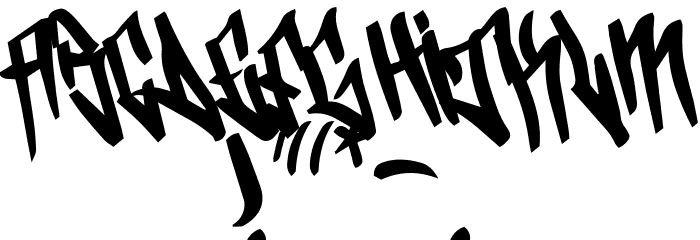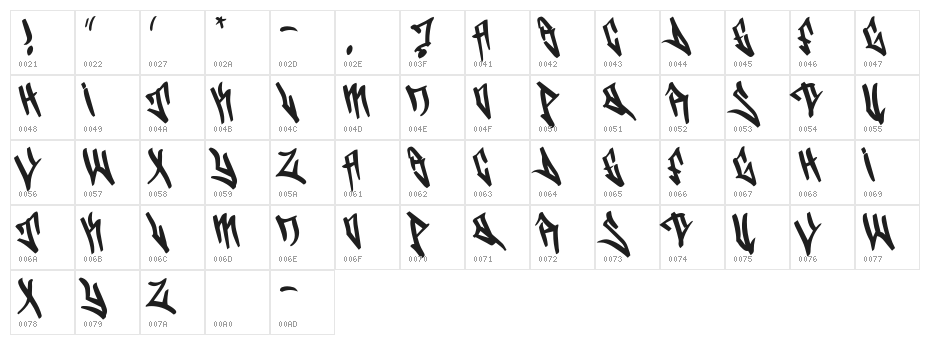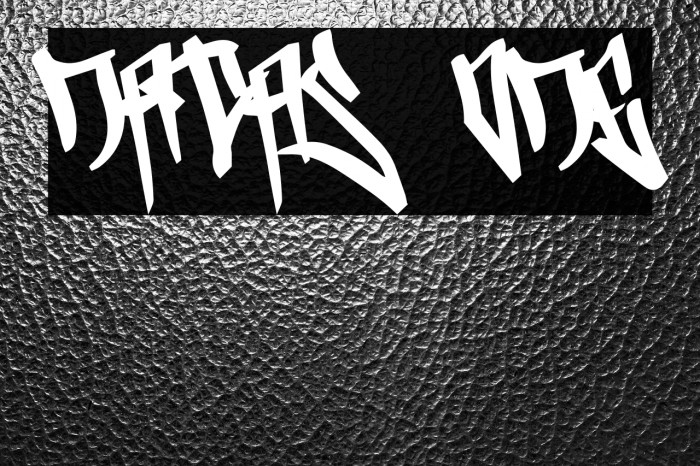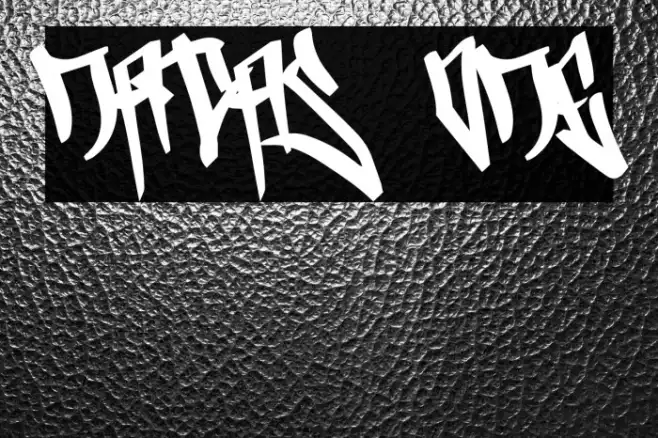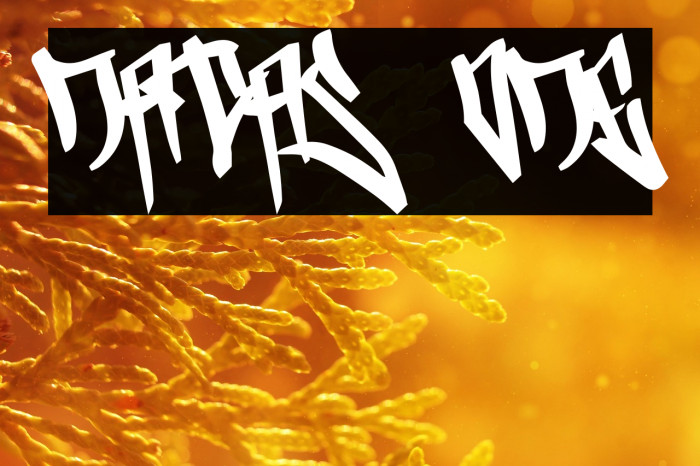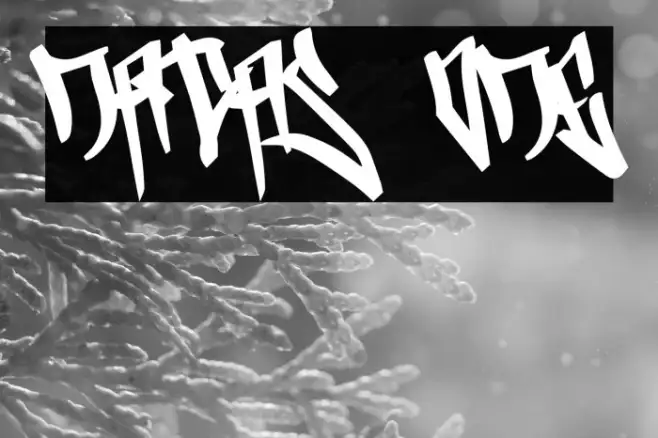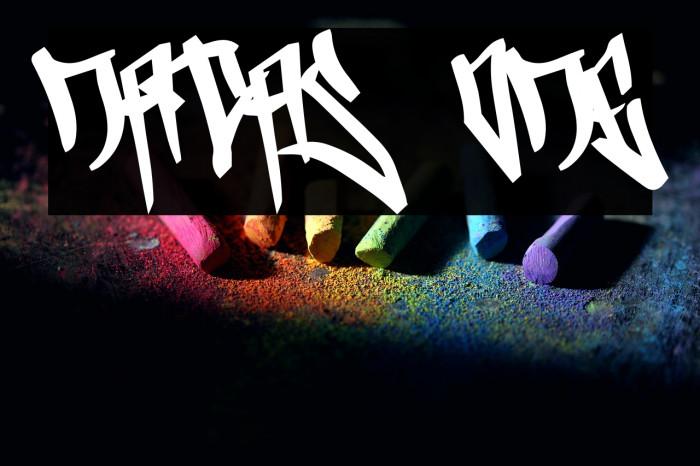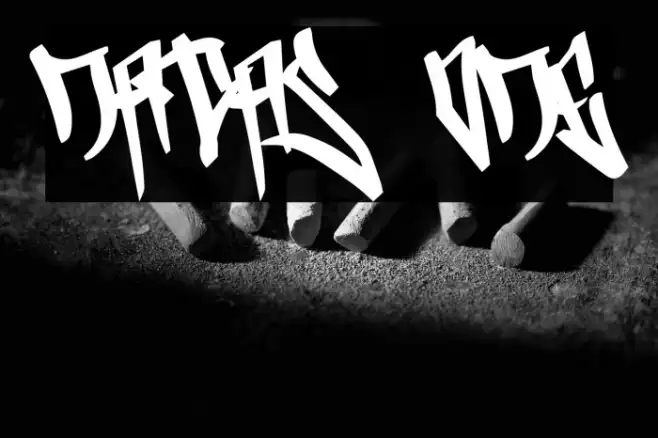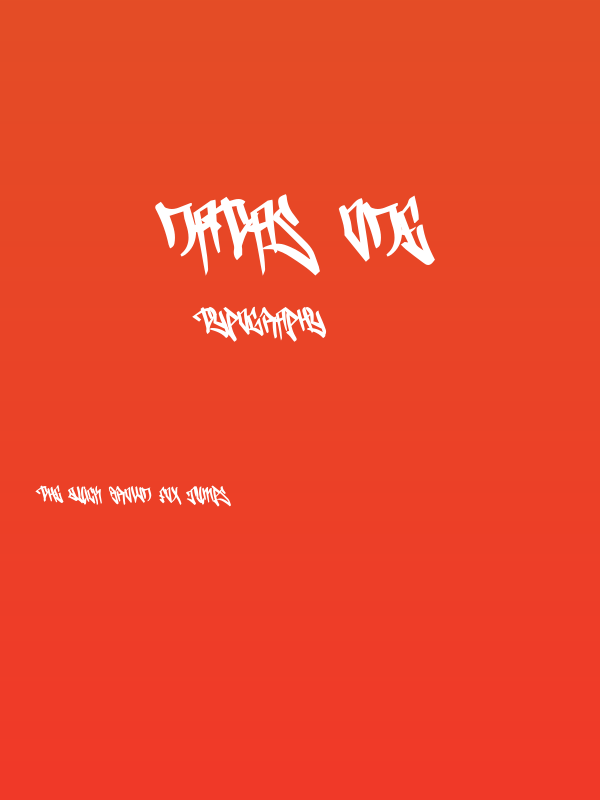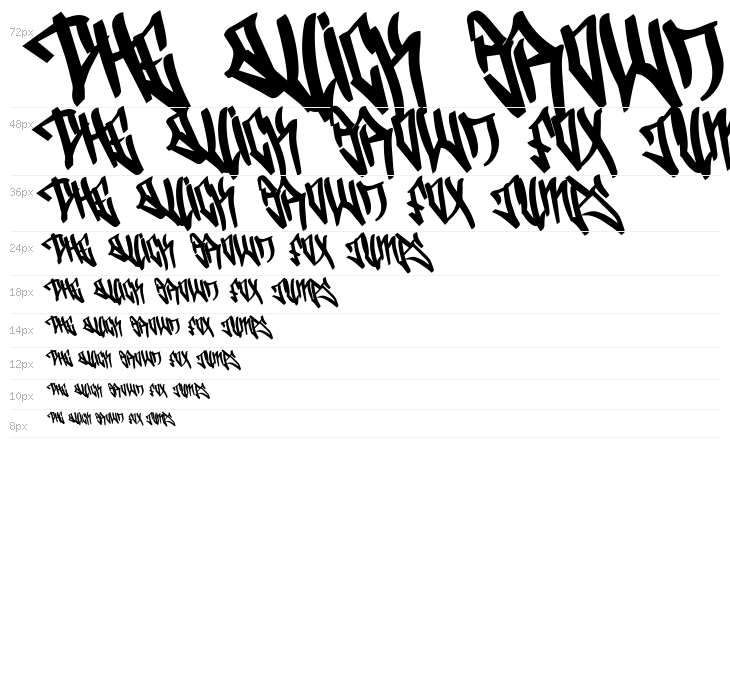
Natas One Font
Natas One Description
This font is a bold and expressive graffiti style, characterized by its angular and sharp letterforms. The strokes are thick and dynamic, giving a sense of movement and energy. Each character is uniquely stylized, with exaggerated curves and points that create a sense of rebellion and urban culture. The letters are tightly spaced, enhancing the compact and dense appearance of the text. This font captures the essence of street art, making it ideal for projects that require a strong and impactful visual statement.
| Overall Style | Urban, Rebellious, Energetic |
| Use Case | Logos, Posters, Album Covers |
| Proposed Projects | Ideal for street art designs, urban-themed posters, music album covers, and edgy branding projects. |